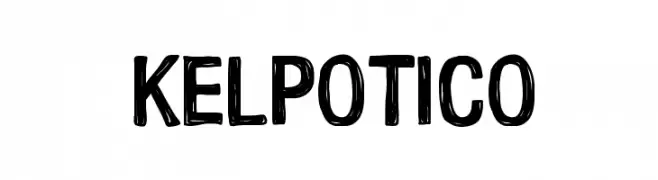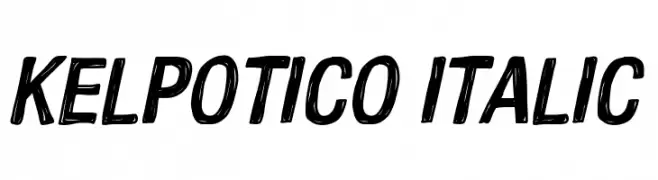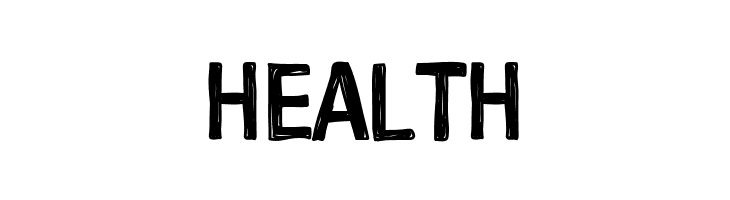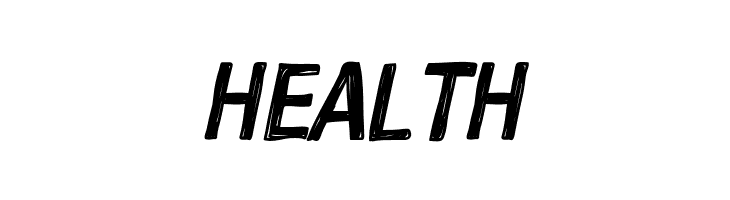
A playful, hand-drawn font with bold, irregular strokes and a casual feel.
A bold, hand-drawn font with a playful and informal style.
A bold, italicized font with a hand-drawn, energetic style.